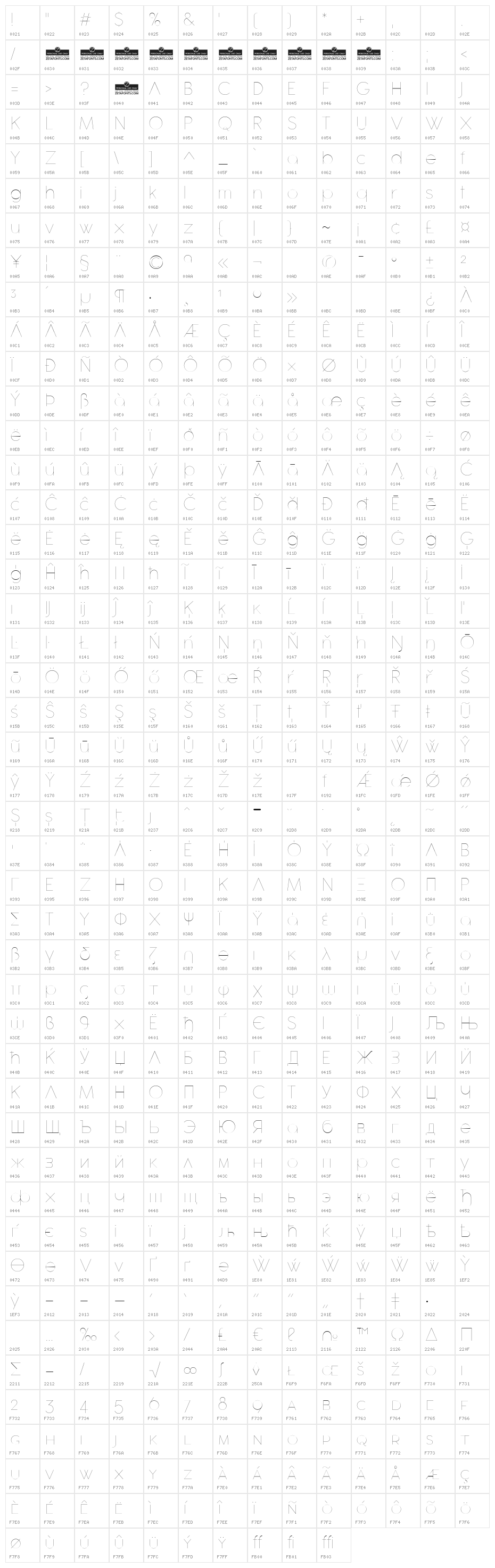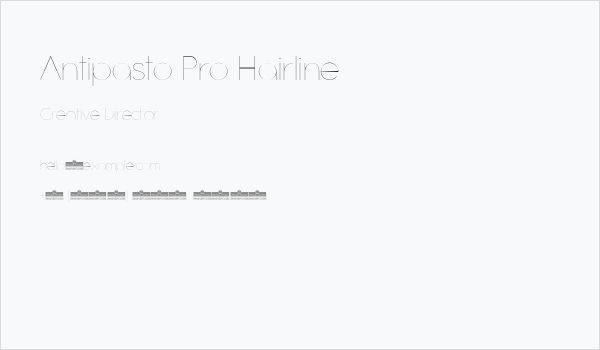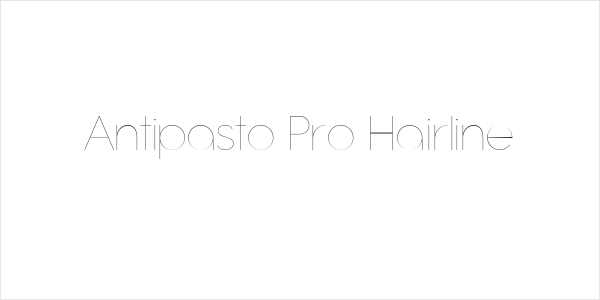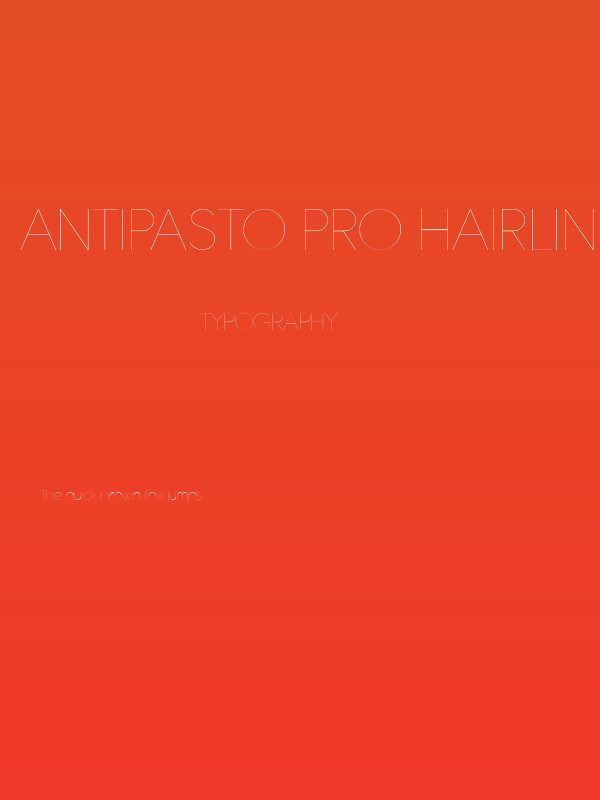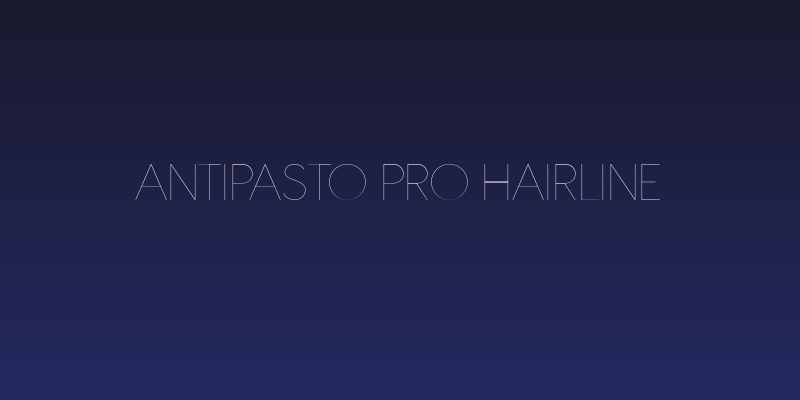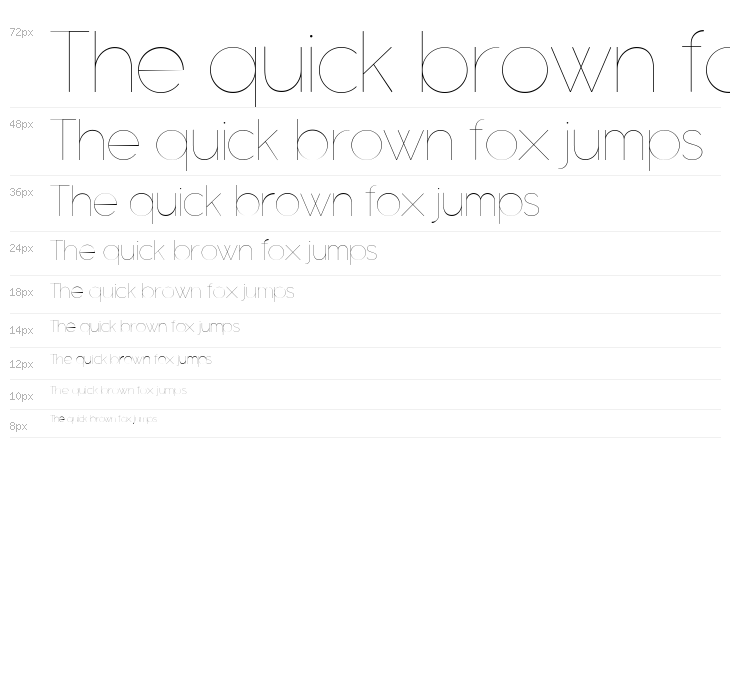
Antipasto Pro Hairline Font
Antipasto Pro Hairline Description
This font features an ultra-thin, elegant design with clean, geometric lines. The characters are sleek and modern, with a minimalist aesthetic that emphasizes simplicity and clarity. The uppercase and lowercase letters maintain a consistent style, with smooth curves and sharp angles that create a harmonious balance. The numerals and special characters are equally refined, maintaining the font's overall sleek appearance. This font is ideal for projects that require a sophisticated and contemporary look.
| Proposed Projects | Ideal for luxury branding, high-end fashion magazines, modern websites, and minimalist graphic design projects. |